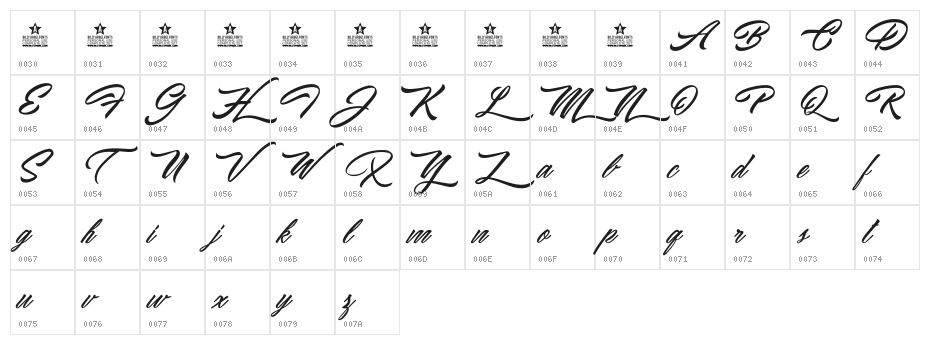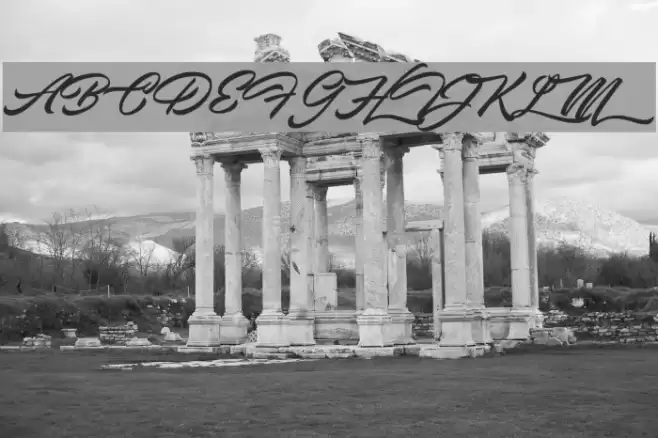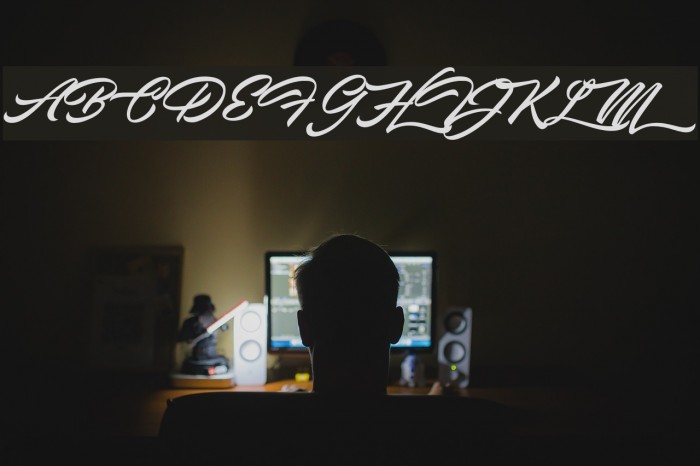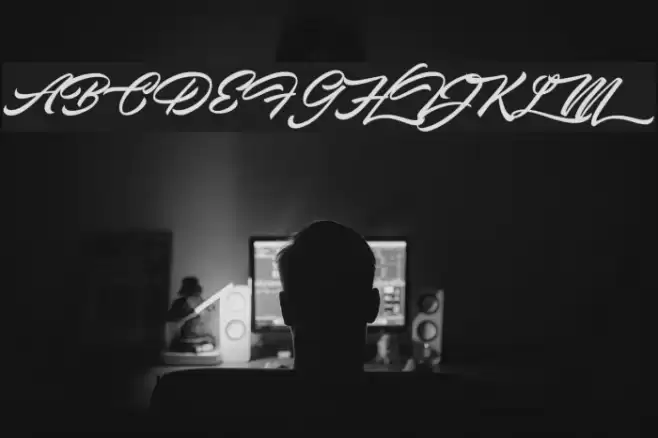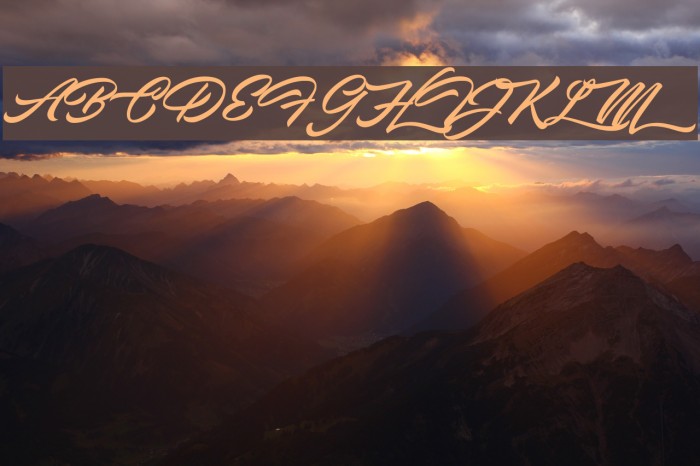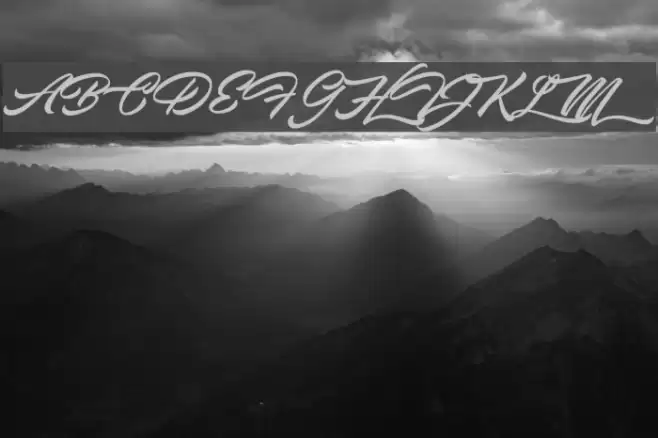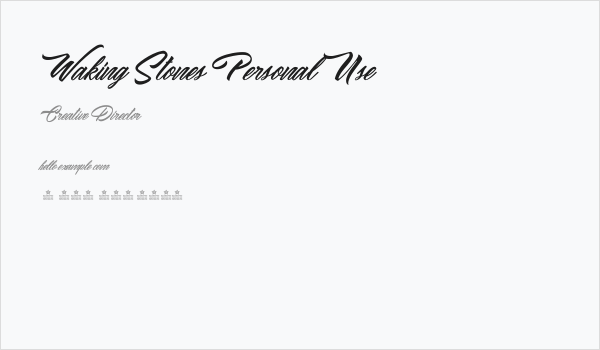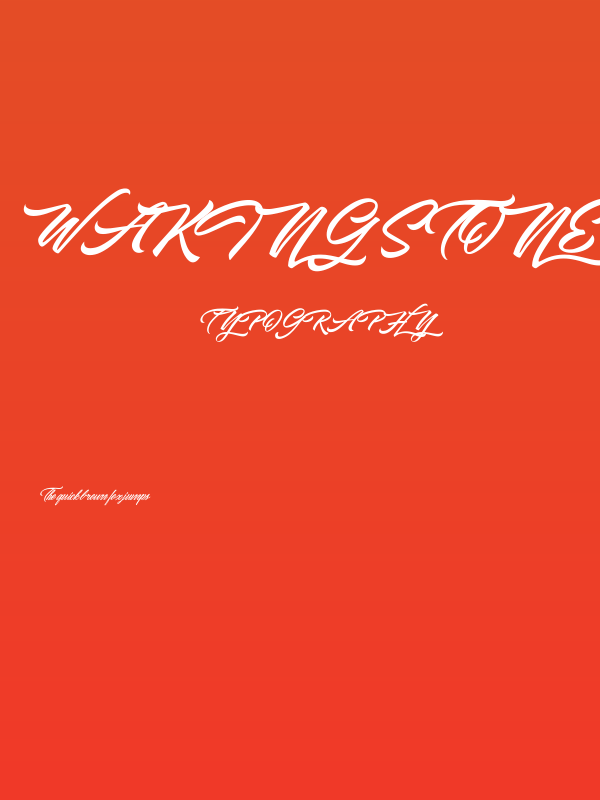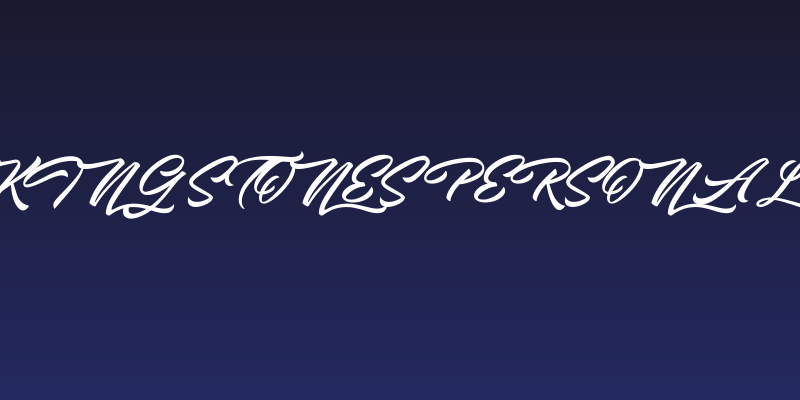
Waking Stones Personal Use Font
Waking Stones Personal Use Description
This font exhibits a bold, cursive style with a flowing and elegant script. The uppercase letters are characterized by sweeping curves and flourishes, giving them a dynamic and expressive appearance. The lowercase letters maintain a consistent flow, with smooth transitions between each character, enhancing readability while preserving the decorative nature. The numbers and special characters are designed to complement the overall script style, featuring similar curves and embellishments. This font is ideal for projects that require a touch of sophistication and flair, such as invitations, branding, or artistic designs.
| Use Case | Logos, Invitations, Artistic Designs |
| Proposed Projects | Ideal for wedding invitations, branding, artistic designs, and decorative projects. |